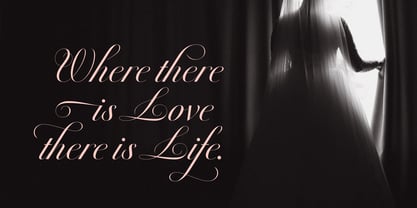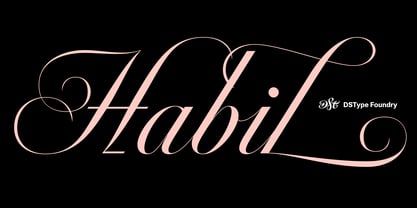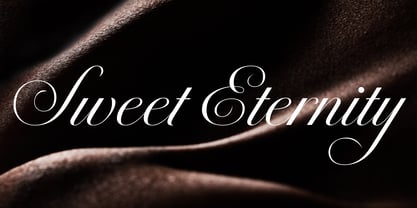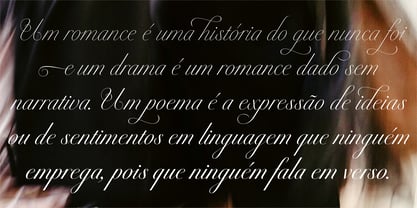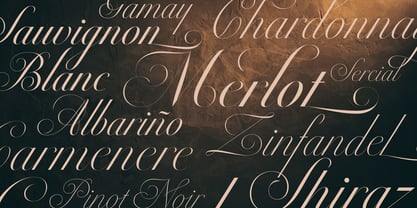
Habil
von DSType
Die Schriftfamilie Habil wurde von Dino dos Santos, Pedro Leal entworfen und von DSType veröffentlicht. Habil enthält 15 Stile und Familienpaketoptionen. Mehr über diese Familie
Inspired by the masterful works of António Jacinto de Araújo, introduced in the 1797 publication Nova Arte de Escrever, the Habil type family captures the fluidity and sensitivity inherent in his calligraphic art. Habil reimagines the possibilities of calligraphic typefaces for modern typographic applications, blending historical elegance with contemporary design. Habil is available in three optical sizes, each offering a unique level of contrast—High, Medium, and Low. This versatility makes it the perfect choice for a wide range of design needs, from sophisticated packaging and striking editorial layouts to dynamic graphic design projects. Each size is meticulously crafted to ensure clarity and aesthetic appeal, no matter the context. The type family features an extensive collection of glyphs and stylistic variations, providing designers with the tools to create truly distinctive and versatile typography. While Habil does not replicate any specific drawings from Araújo's original plates, it pays homage to his influence by playing a contemporary role in type design, embodying the same spirit of innovation and artistry.
Designer: Dino dos Santos, Pedro Leal
Foundry: DSType